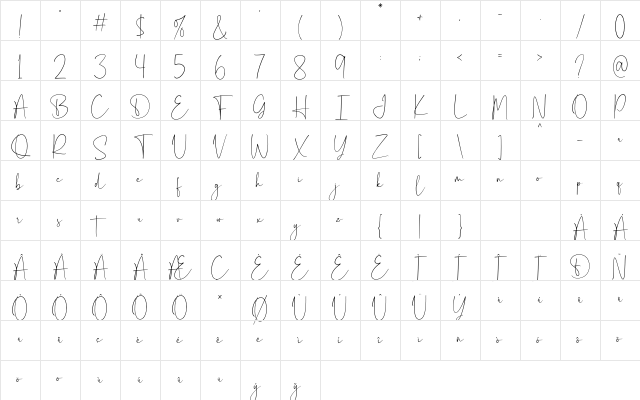
Rihania Smith Regular
Foundry: RantauType
Designer: Yudi Pratama Chandra
Design Context for Rihania Smith
Rihania Smith is a composed and adaptable typeface that performs quietly and consistently across a wide range of design contexts.